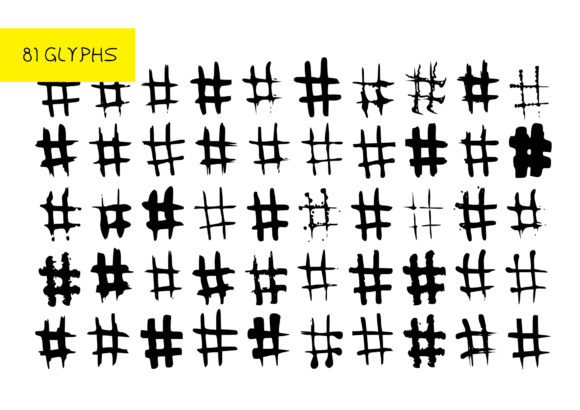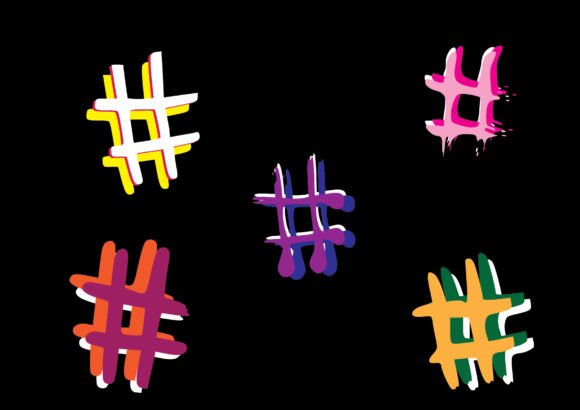
Unlock Creative Possibilities with BM Graphics – Hash Tags Font
Are you tired of using the same old fonts for your design projects? Do you want to add a touch of personality and uniqueness to your creations? Look no further than the BM Graphics – Hash Tags Font, a stunning dingbats font that is sure to elevate your designs to the next level.
What is Hash Tags Font?
Hash Tags Font is a carefully crafted dingbats font that contains an impressive 81 glyphs. This extensive collection of symbols and icons allows you to add a personalized touch to any design project, whether it’s a social media graphic, a branding campaign, or a craft project.
Key Features of Hash Tags Font
• 81 Glyphs: With a vast array of symbols and icons at your disposal, you can create unique and eye-catching designs that reflect your brand’s personality.
• Dingbats Font: Hash Tags Font is a dingbats font, which means it’s perfect for adding visual interest to your designs without relying on traditional lettering.
• Personalized Appearance: With Hash Tags Font, you can add a touch of personality to your designs, making them stand out from the crowd.
• Versatile: This font is suitable for a wide range of design projects, from social media graphics to branding campaigns, and even craft projects.
Why Choose Hash Tags Font?
In today’s digital age, it’s easier than ever to create stunning designs that capture your audience’s attention. However, with so many fonts available, it can be challenging to find one that truly stands out. Hash Tags Font offers a unique combination of style, versatility, and personality, making it the perfect choice for designers and crafters looking to elevate their designs.
How to Use Hash Tags Font
Design Ideas with Hash Tags Font
The possibilities are endless with Hash Tags Font. Here are a few design ideas to get you started:
• Social Media Graphics: Use Hash Tags Font to create eye-catching social media graphics that showcase your brand’s personality.
• Branding Campaigns: Add a touch of personality to your branding campaigns with custom logos, icons, and graphics created with Hash Tags Font.
• Craft Projects: Use Hash Tags Font to add a personal touch to your craft projects, such as handmade cards, scrapbooking, or DIY home decor.
To get the most out of Hash Tags Font, here are a few tips and tricks to keep in mind:
• Experiment with Different Combinations: Don’t be afraid to try out different glyph combinations to create a unique look.
• Use it with Other Fonts: Hash Tags Font pairs well with other fonts, so feel free to experiment with different font combinations.
• Customize and Scale: Customize the size and color of the glyphs to fit your design needs.
BM Graphics – Hash Tags Font is a game-changer for designers and crafters looking to add a touch of personality to their designs. With its extensive collection of 81 glyphs, versatility, and ease of use, this stunning dingbats font is sure to become a staple in your design toolkit. So why wait? Download Hash Tags Font today and unlock a world of creative possibilities!